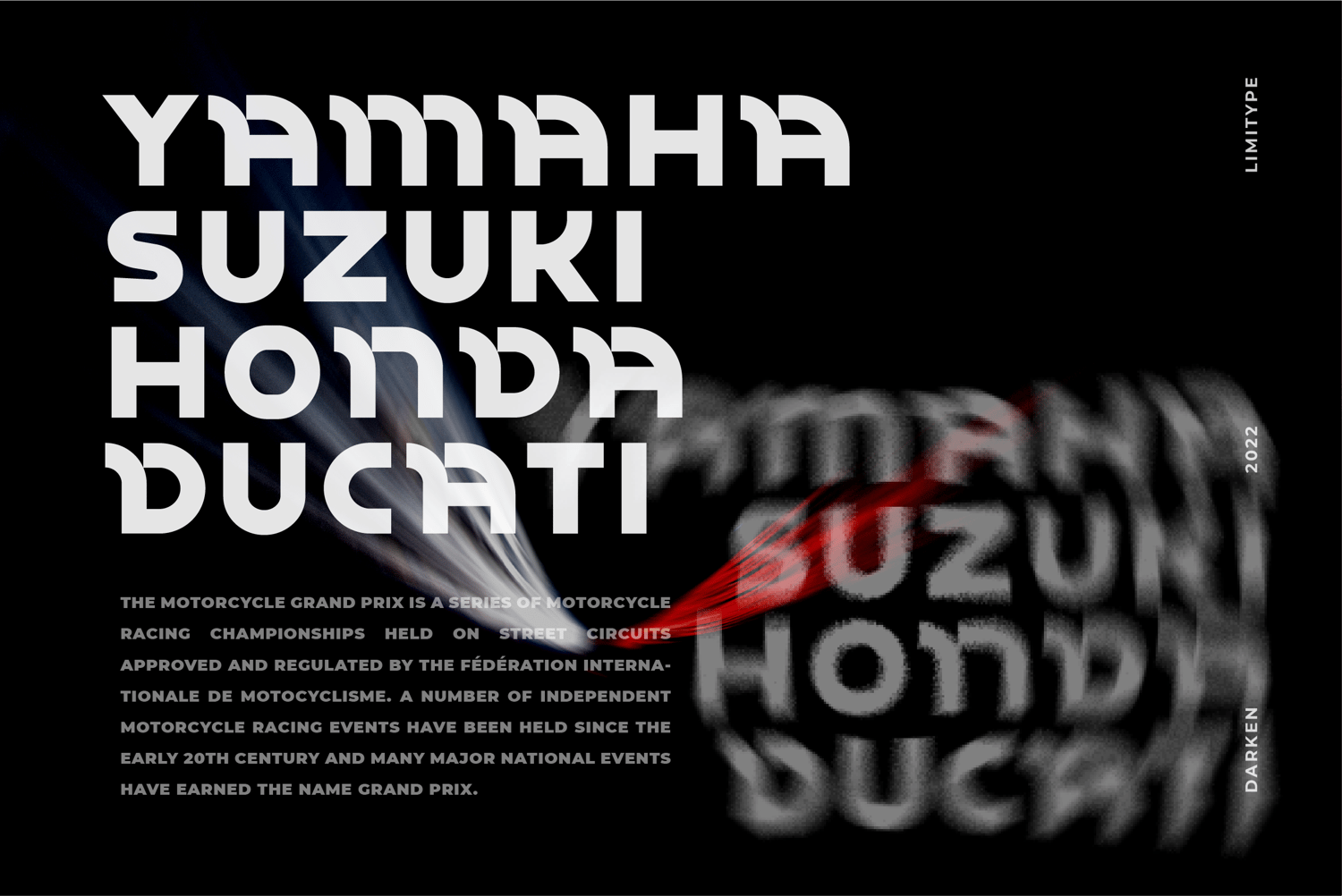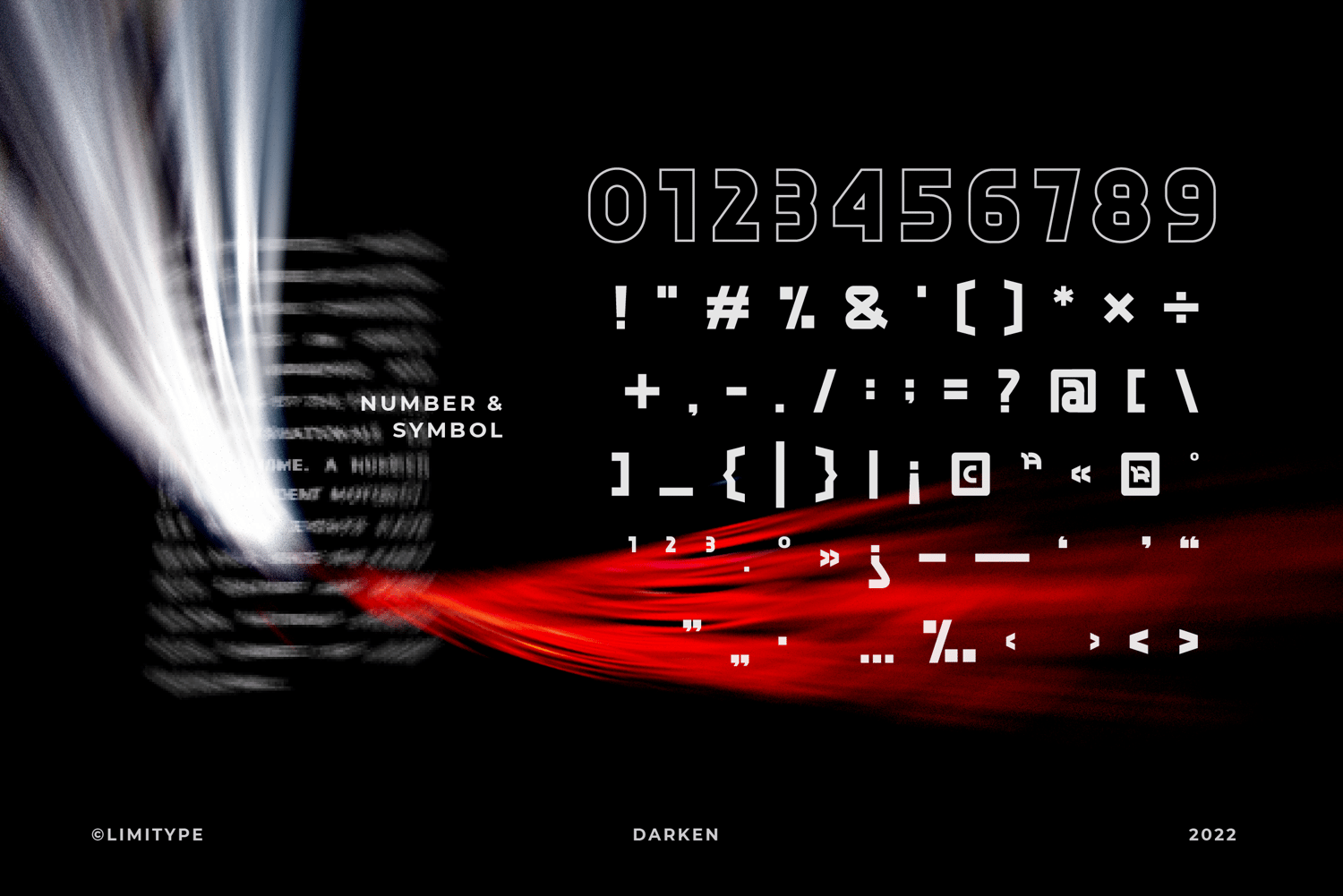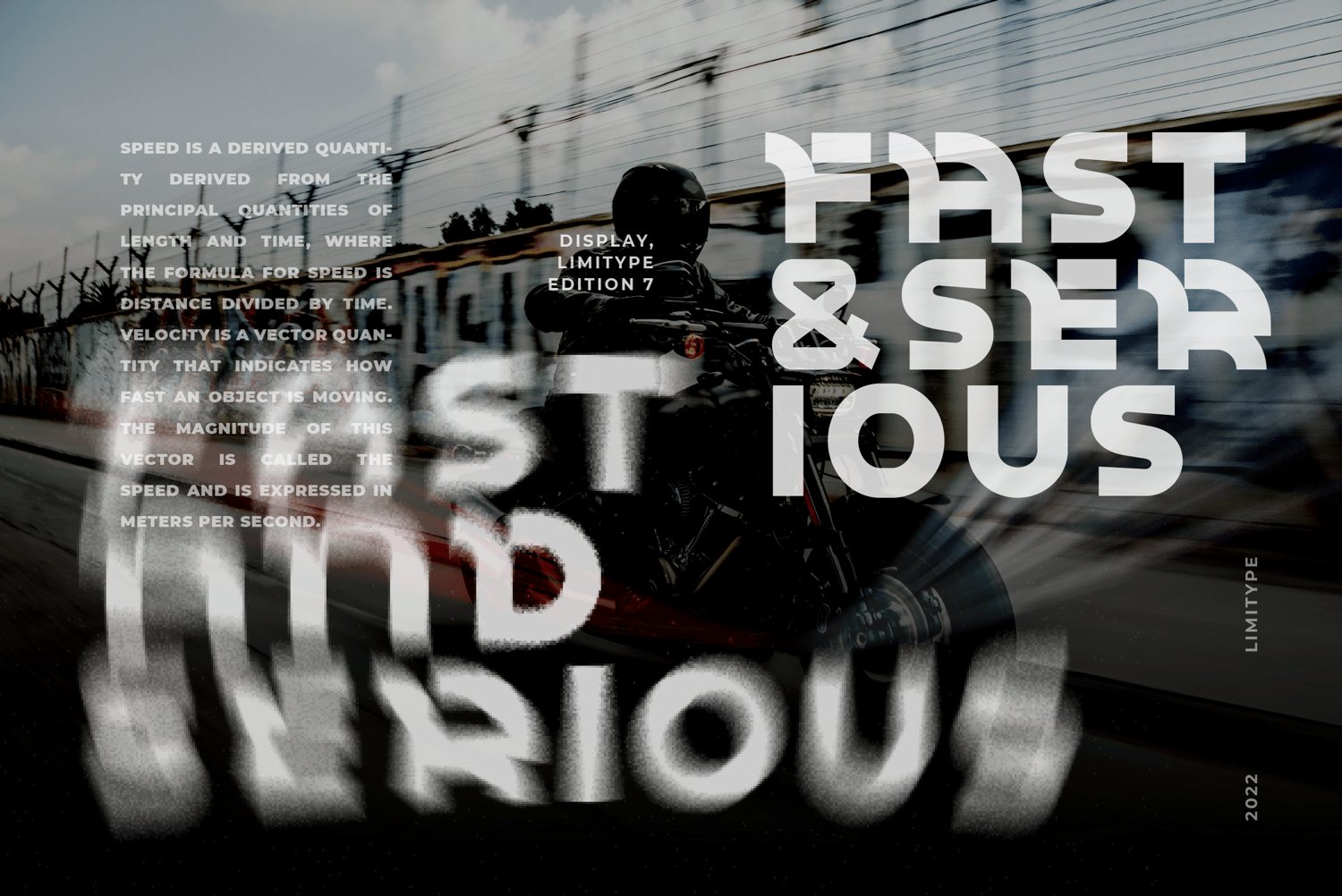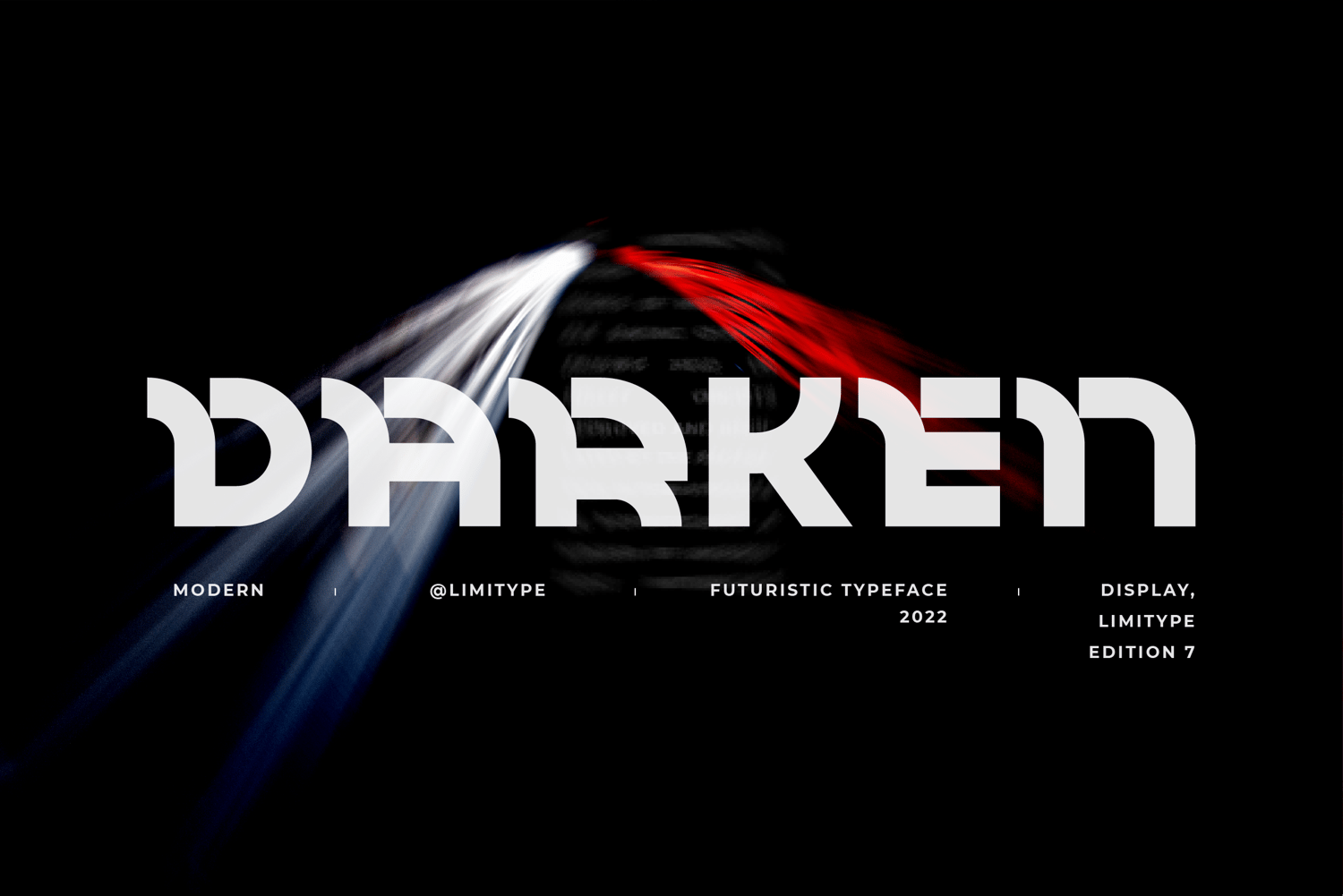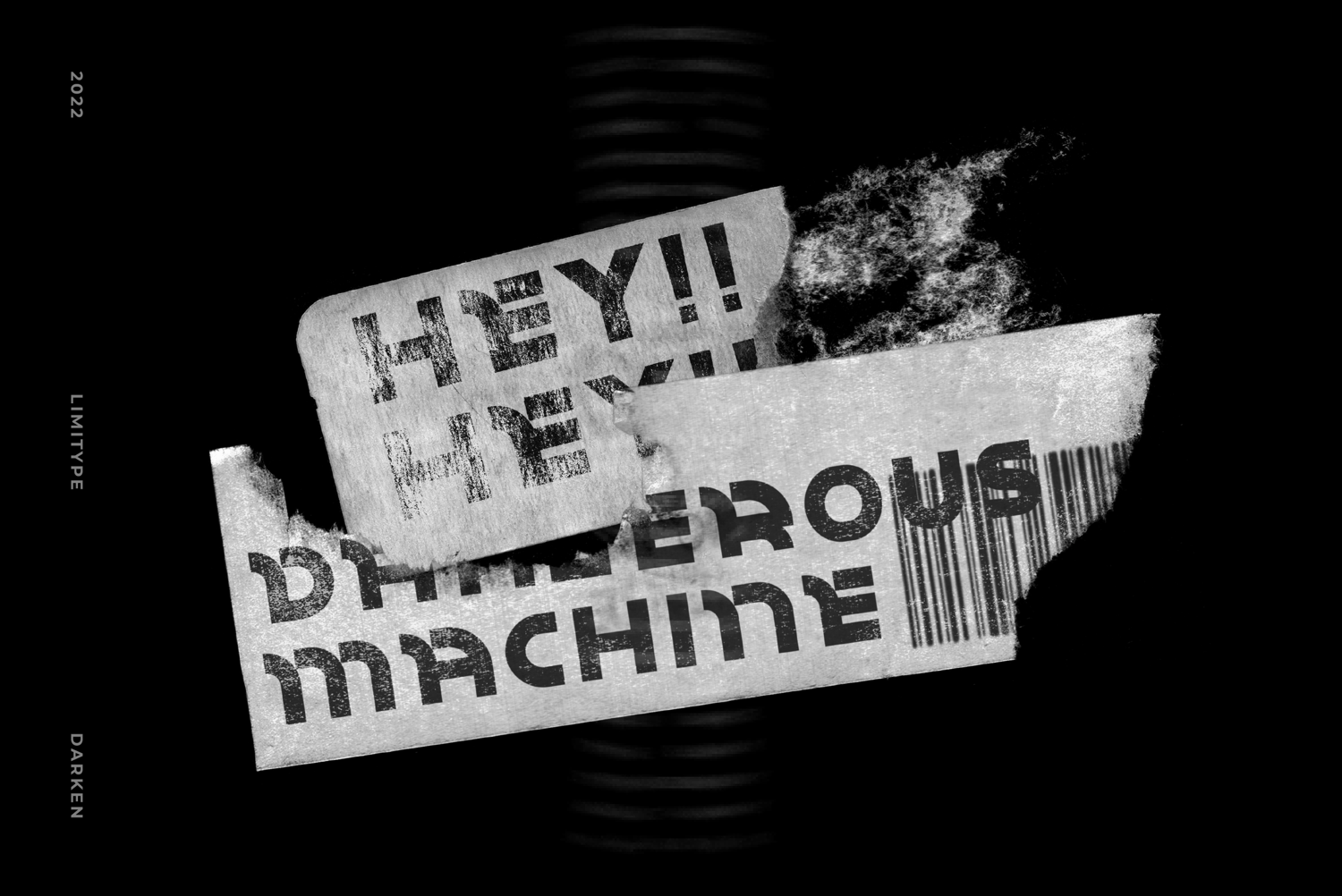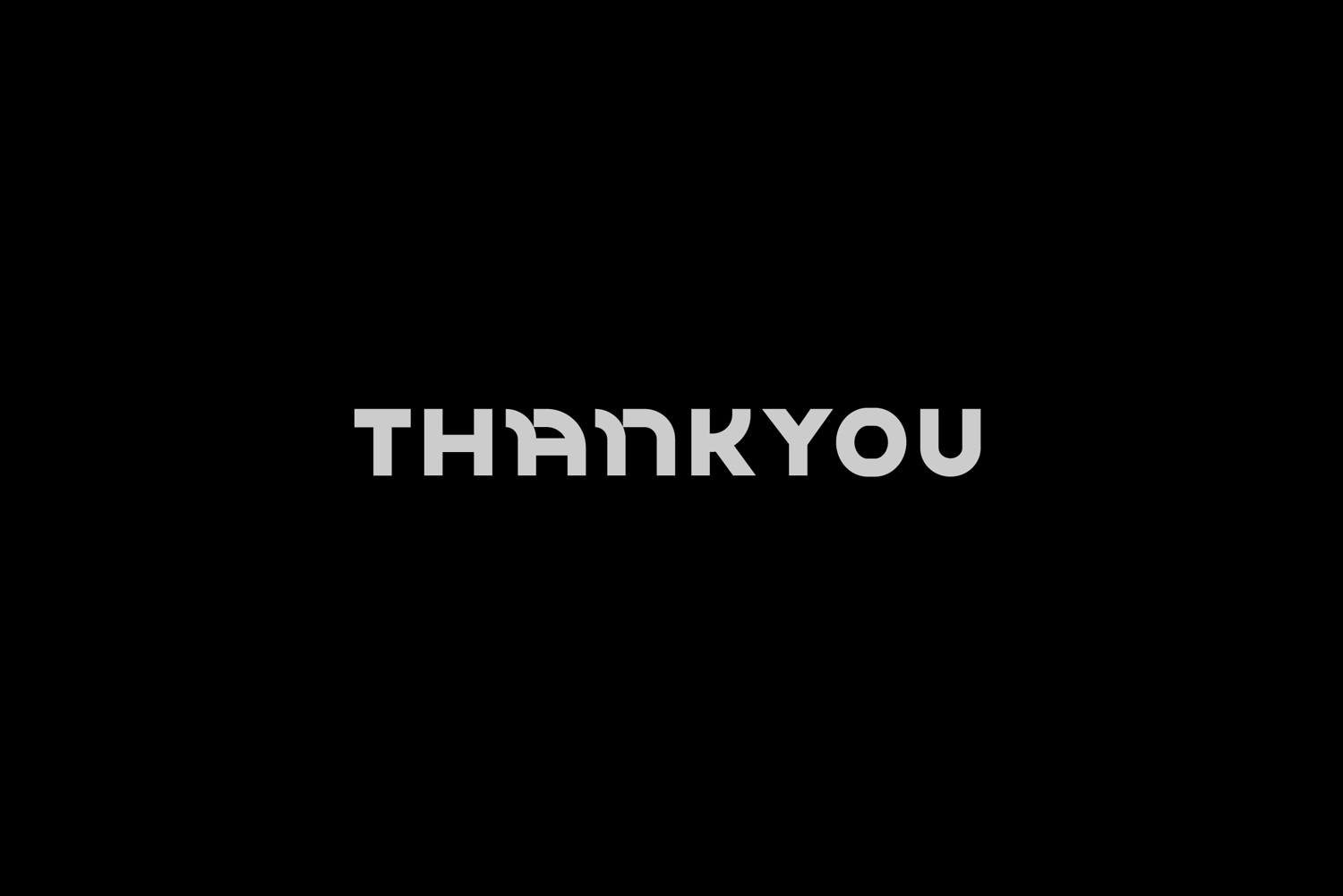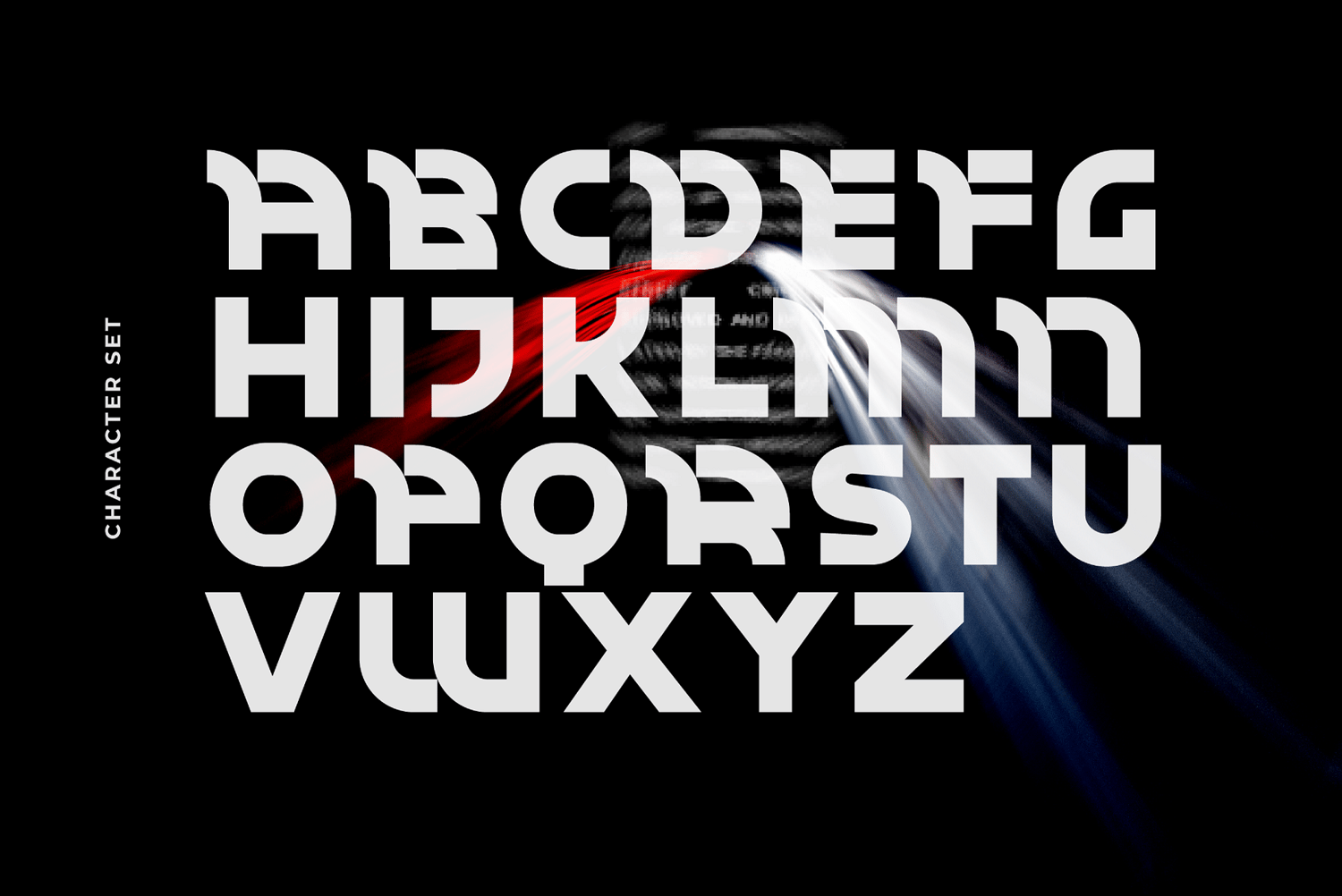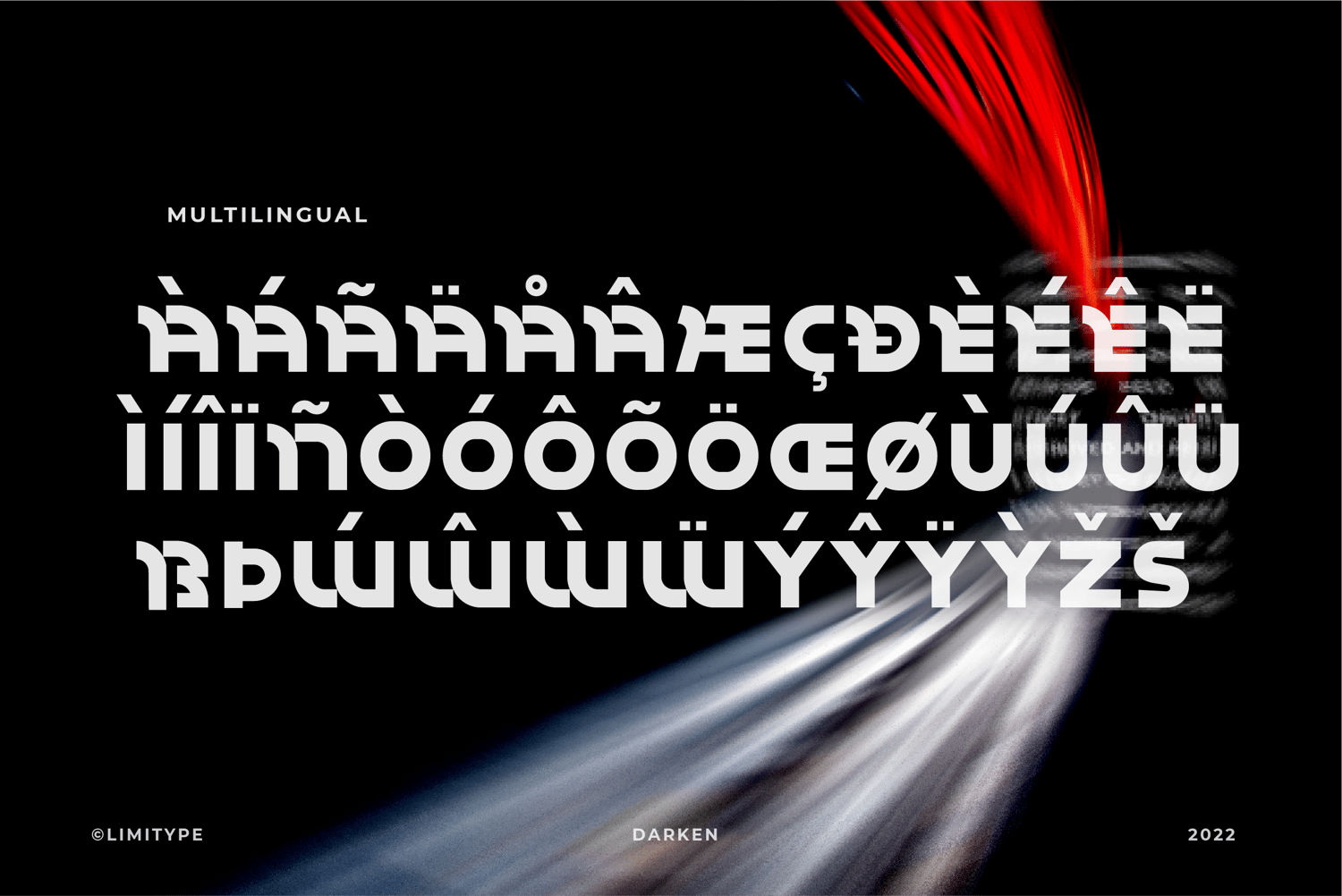
Darken - Futuristic Font
Darken is a display typeface with a modern and futuristic impression with bold characters suitable for your display, headline, logo and branding needs. Darken is available in uppercase, numbers, symbols and multilingual and several alternatives